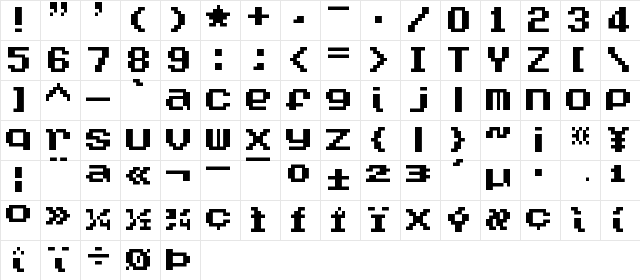
Complete A Goblin Appears! Regular glyph index. Displaying only characters natively supported by A Goblin Appears! Regular font.
A Goblin Appears! is a composed and adaptable typeface that performs quietly and consistently across a wide range of design contexts.